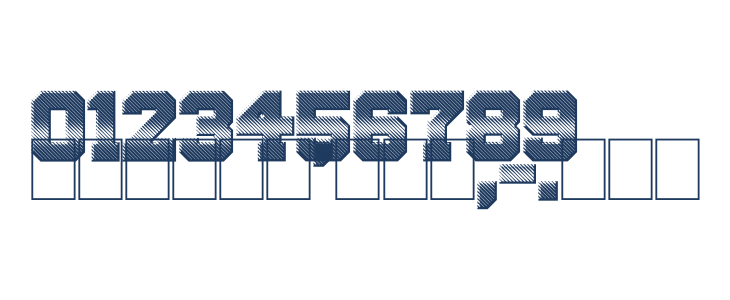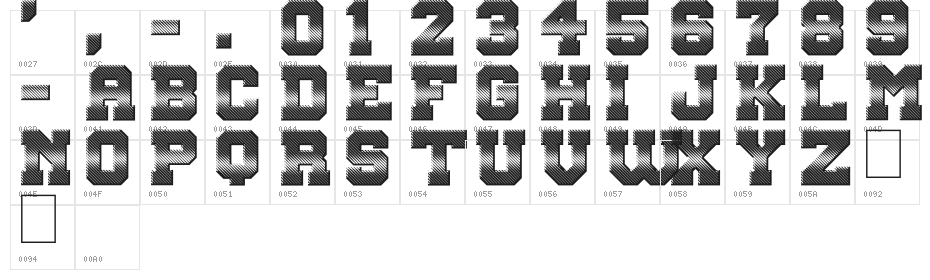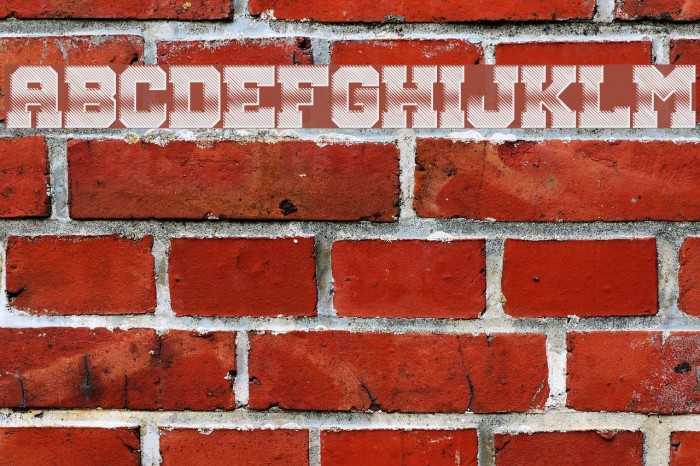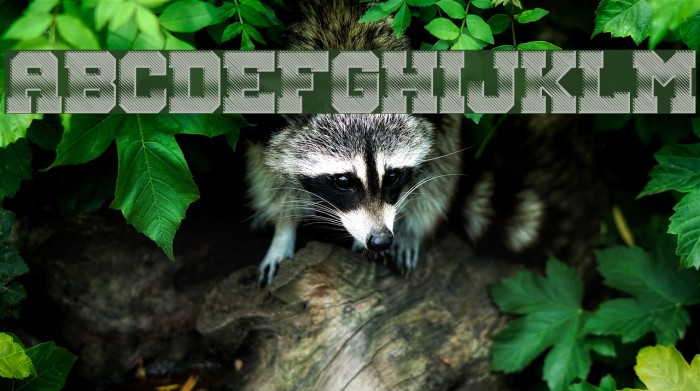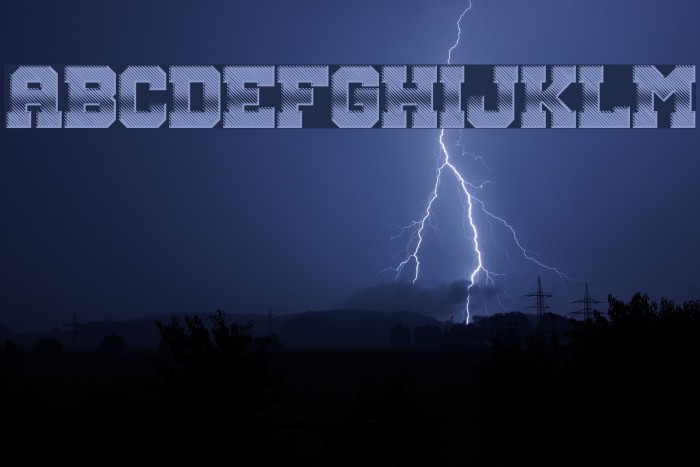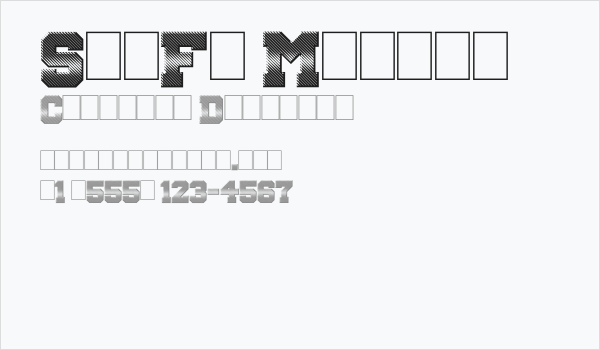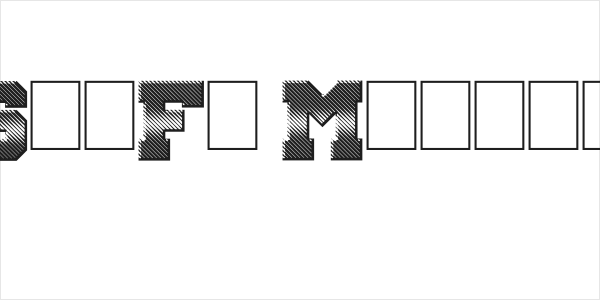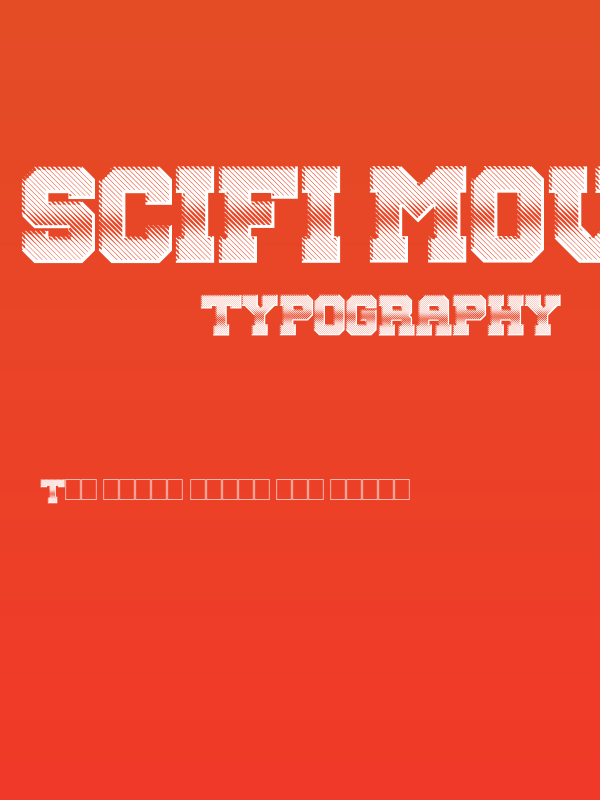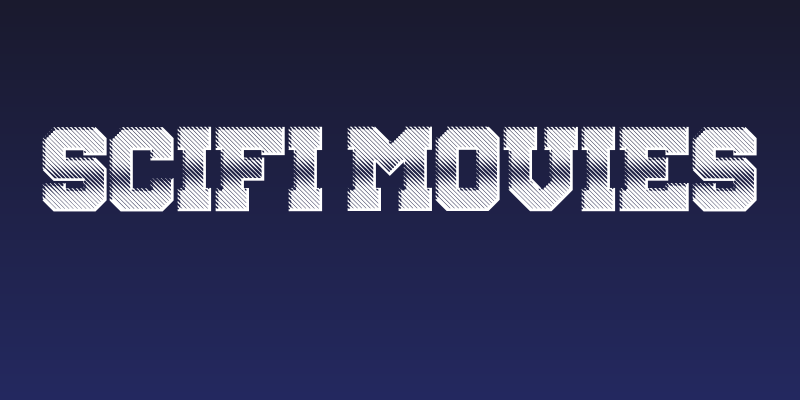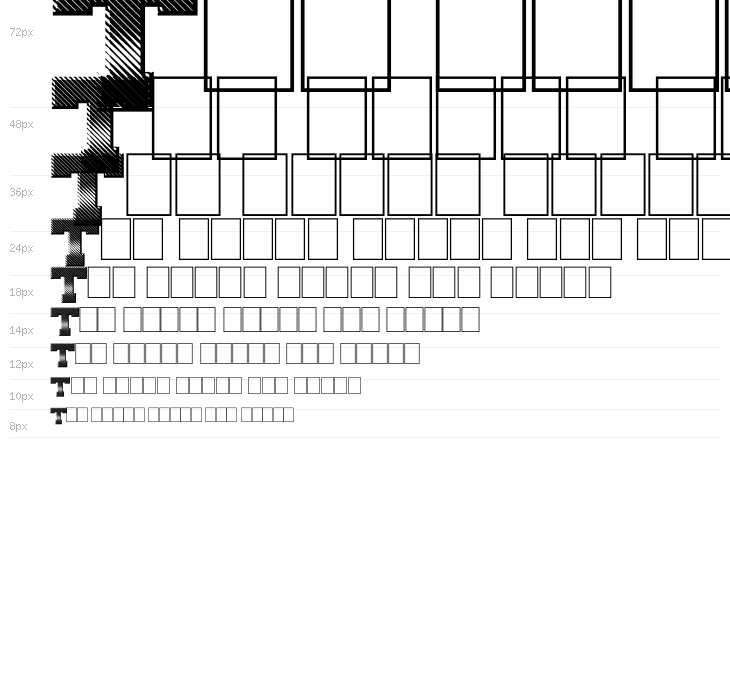
SciFi Movies Font
SciFi Movies Description
This font features a bold, futuristic design with a distinct 3D effect created by diagonal lines running through each character. The letters are blocky and robust, giving a sense of strength and modernity. The use of shading adds depth and dimension, making the font stand out. It is highly stylized, with a unique pattern that suggests movement and innovation, ideal for projects that require a high-tech or sci-fi aesthetic. The characters are evenly spaced, ensuring readability while maintaining a visually striking appearance.
| Proposed Projects | Perfect for sci-fi movie titles, tech branding, video game covers, and futuristic posters. |